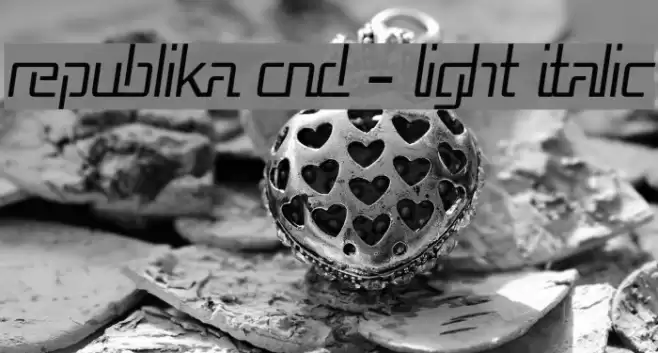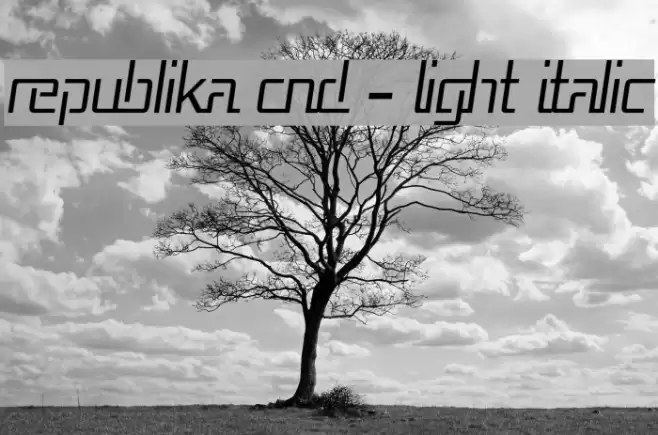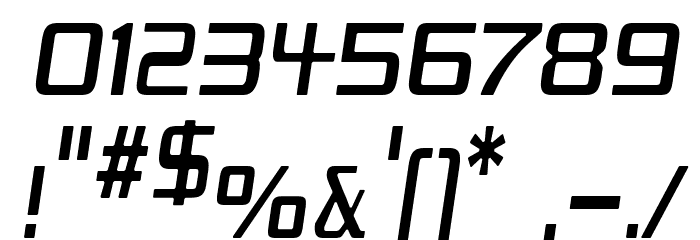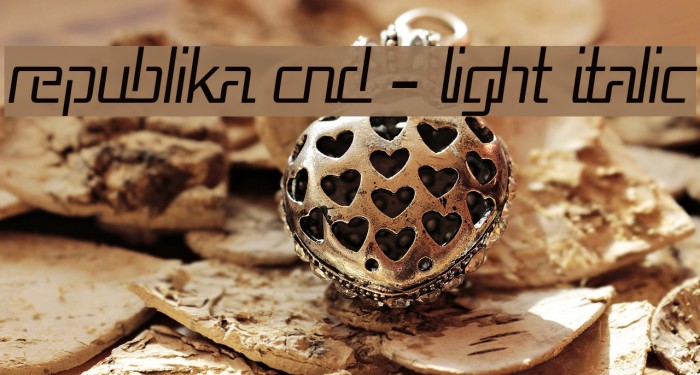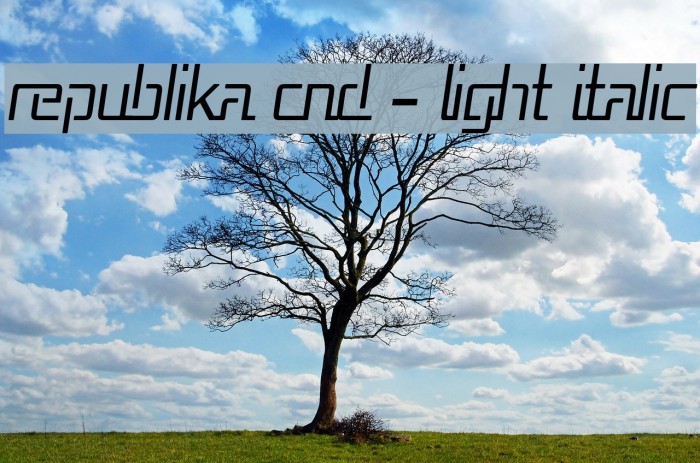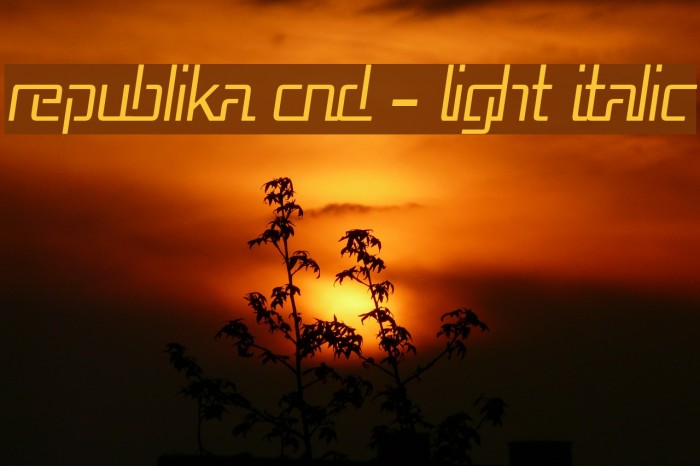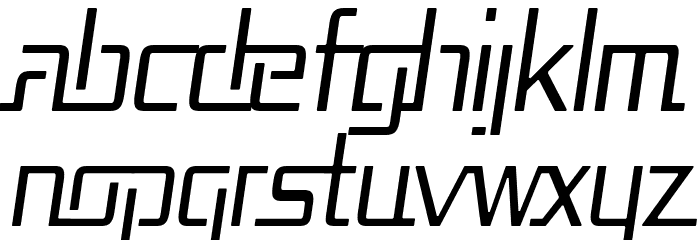
Republika Cnd - Light Italic Font
Republika Cnd - Light Italic Description
This font features a sleek, modern design with a condensed and italicized style. The characters are elongated and slightly slanted, giving a sense of motion and dynamism. The strokes are consistent in weight, providing a uniform appearance across all characters. The font maintains a geometric structure, with sharp angles and clean lines, making it suitable for contemporary design projects. The spacing between characters is tight, enhancing its compact look. This font is ideal for creating a futuristic or tech-oriented aesthetic.
A sleek, modern, condensed italic font with a geometric structure from Uncategorized fonts.
- Proposed Projects: Ideal for tech branding, modern advertising, futuristic posters, and digital interfaces.
- Weight: Light
- Character Spacing: Tight